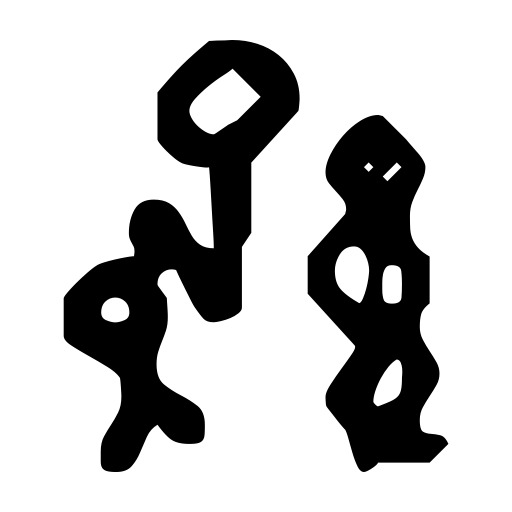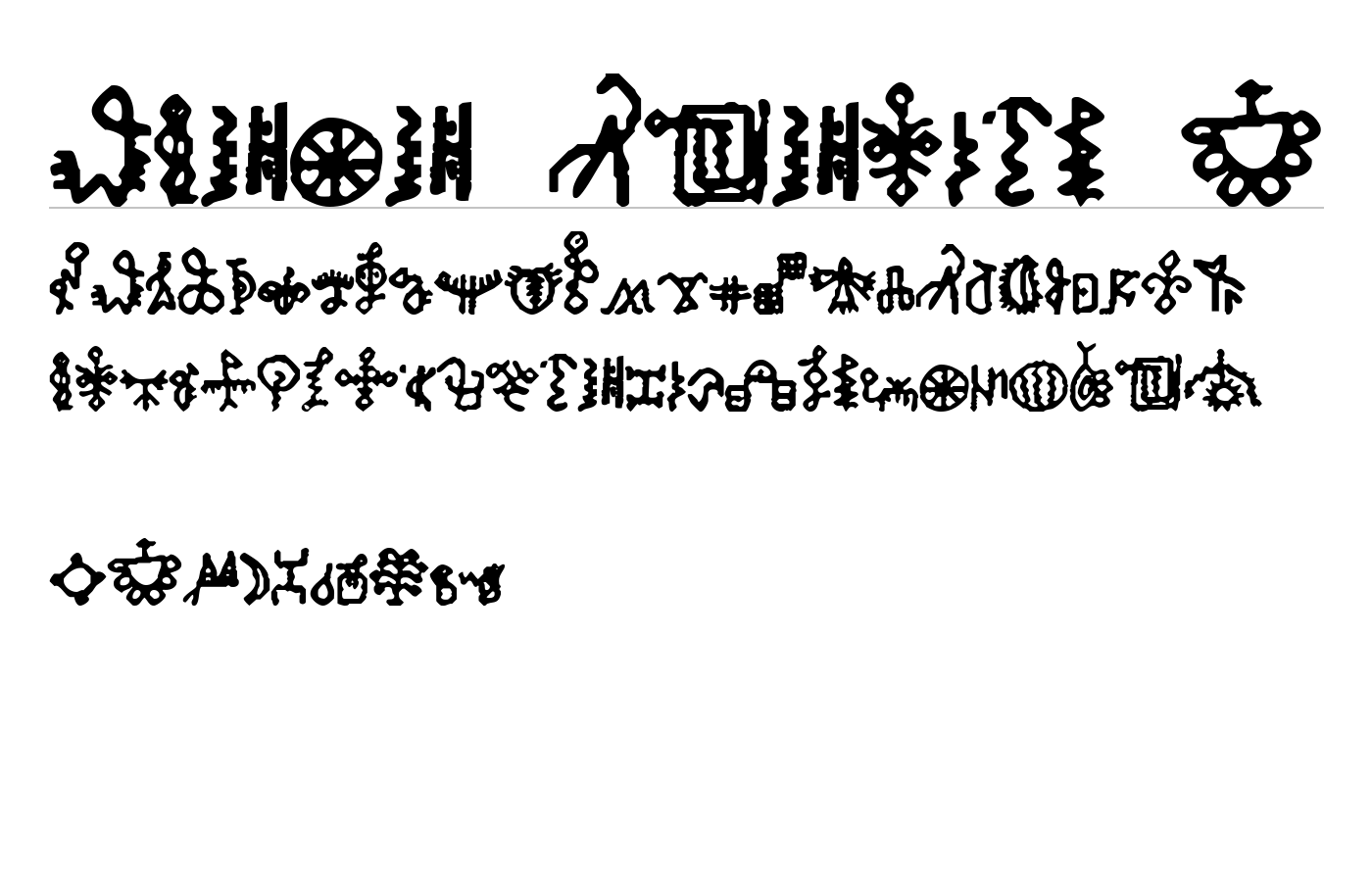
Bamum Symbols 1 is a decorative symbol font featuring a collection of intricate, abstract shapes rooted in traditional African script design. Its bold, black forms exhibit high stroke contrast with a dense, compact structure, ideal for ornamental or cultural projects. This unique font works best in artistic logos, branding, and editorial designs that seek to convey heritage, mystery, and a strong visual identity.
Bamum Symbols 1 Font
About Bamum Symbols 1 Font